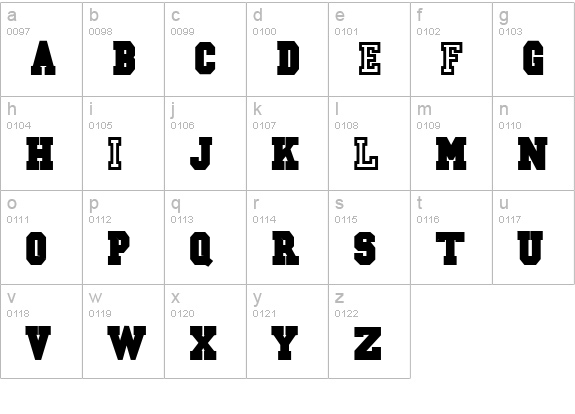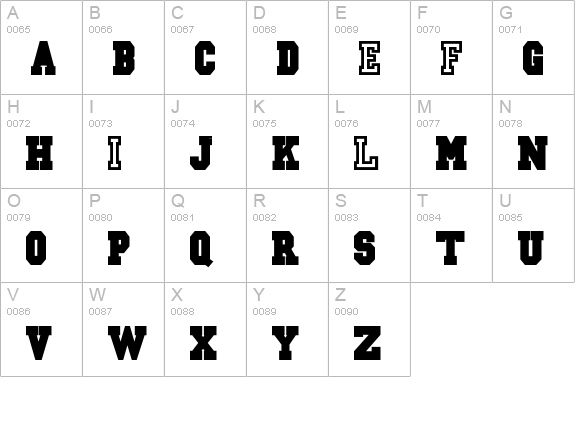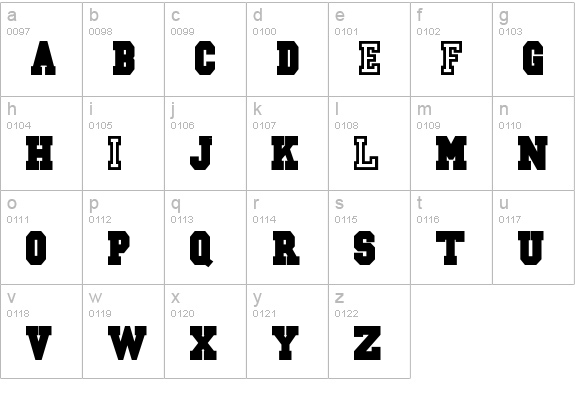
CSD Regular Font Details
CSD Regular is the standard, neutral variant in the CSD typeface family \xE2\x80\x94 well suited to general body text, paragraphs, and standard typographic work.
CSD Regular font is a modern and sleek typeface that exudes elegance and sophistication. Its clean lines and balanced proportions make it perfect for a wide range of design projects, from branding to editorial layouts. The font features a timeless aesthetic that is both classic and contemporary, making it a versatile choice for any designer. What sets CSD Regular font apart is that it is available for free download at FontsMarket.com. This means that you can easily access this high-quality font without any cost, making it a valuable resource for your creative projects. Whether you are working on a professional design project or personal creative endeavor, CSD Regular font is sure to elevate your work with its refined and stylish appearance. Download it today and add a touch of sophistication to your designs.